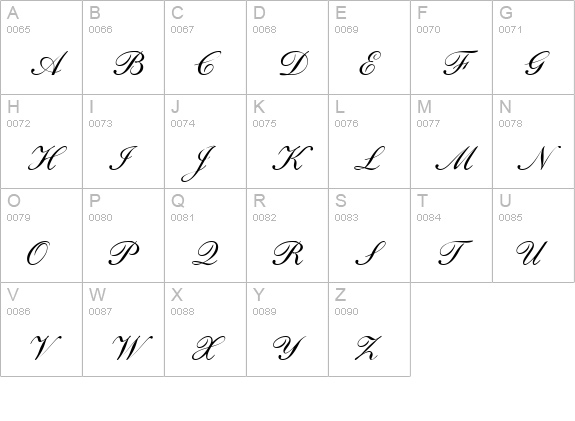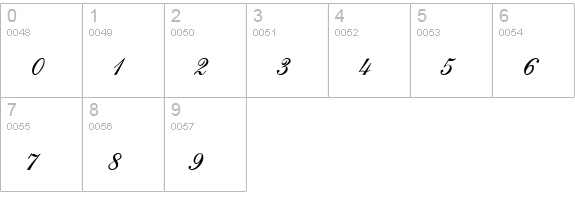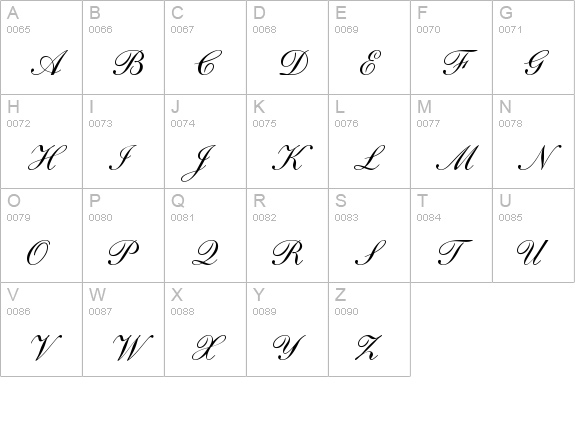
SheerBeauty Font Details
SheerBeauty font is a stunning typeface that exudes elegance and sophistication. With its delicate curves and graceful strokes, it captures the essence of timeless beauty. This font is a perfect choice for any project that requires a touch of refinement and class. The unique feature of SheerBeauty font lies in its versatility. It can be used for a wide range of design purposes, including logos, branding, invitations, and editorial layouts. Its clean and legible letterforms ensure readability across various mediums, making it an ideal choice for both print and digital applications. One of the most exciting aspects of SheerBeauty font is that it is free. That's right, you can freely download this exquisite typeface at FontsMarket.com. This generous offer allows designers, enthusiasts, and creatives from all walks of life to access and unleash the beauty of SheerBeauty font in their projects. Whether you're a professional graphic designer or a DIY enthusiast, SheerBeauty font offers endless creative possibilities. Its timeless appeal and easy-to-use nature make it a must-have in any designer's toolkit. So why wait? Download SheerBeauty font today and let its sheer beauty elevate your designs to new heights.